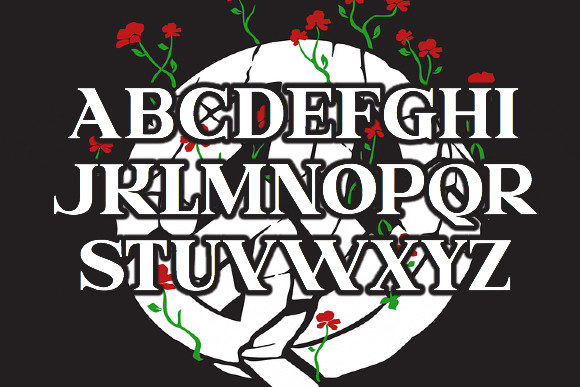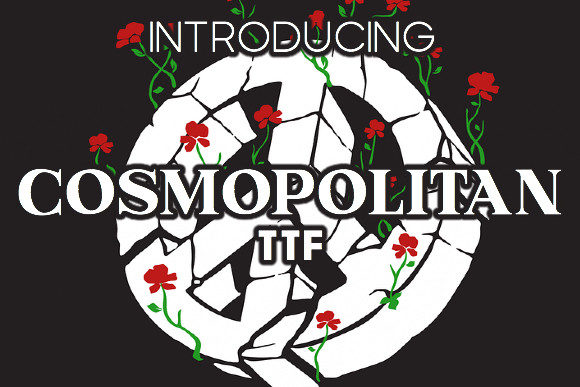
Cosmopolitan Font: Elevate Your Designs with Elegance
Are you on the hunt for a typeface that exudes sophistication and poise? Look no further than the Cosmopolitan font. This stunning font is perfect for designers and crafters seeking to add a touch of elegance to their projects. In this article, we’ll dive into the world of Cosmopolitan font, exploring its features, uses, and benefits.
What is Cosmopolitan Font?
Cosmopolitan is a beautiful typeface that boasts elegant vibes, making it an excellent choice for a wide range of design applications. Its sleek lines, refined curves, and sophisticated style make it perfect for creating visually stunning posters, flyers, prints, and more.
Key Features of Cosmopolitan Font
• Elegant Design: Cosmopolitan font features a sleek and refined design that is sure to elevate your designs.
• Versatile: This font is perfect for a variety of design applications, including posters, flyers, prints, and more.
• Easy to Read: Cosmopolitan font is clear and easy to read, making it perfect for body text and headlines.
• Scalable: This font scales beautifully, ensuring that your designs look great in any size.
Uses of Cosmopolitan Font
Cosmopolitan font is an incredibly versatile typeface that can be used in a wide range of design applications. Here are some ideas to get you started:
• Posters: Create stunning posters that grab attention with Cosmopolitan font.
• Flyers: Design eye-catching flyers that showcase your products or services.
• Prints: Use Cosmopolitan font to create beautiful prints, including brochures, catalogs, and more.
• Branding: Establish your brand identity with Cosmopolitan font, perfect for logos, business cards, and letterheads.
Benefits of Using Cosmopolitan Font
So, why choose Cosmopolitan font for your designs? Here are some benefits to consider:
• Instant Elegance: Add a touch of sophistication to your designs with Cosmopolitan font.
• Improved Readability: This font is clear and easy to read, ensuring that your message gets across.
• Versatility: Use Cosmopolitan font in a wide range of design applications.
• Time-Saving: With Cosmopolitan font, you can create stunning designs in no time.
Tips for Using Cosmopolitan Font
To get the most out of Cosmopolitan font, here are some tips to keep in mind:
• Pair with Other Fonts: Experiment with pairing Cosmopolitan font with other fonts to create a unique look.
• Adjust Font Sizes: Play with font sizes to create visual hierarchy and emphasis.
• Use Colors Wisely: Choose colors that complement Cosmopolitan font and enhance your design.
In conclusion, Cosmopolitan font is an awesome typeface that can elevate your designs with its elegant vibes. With its versatility, readability, and scalability, this font is perfect for a wide range of design applications. Whether you’re a designer or crafter, Cosmopolitan font is sure to become a staple in your toolkit. So, what are you waiting for? Download Cosmopolitan font today and start creating stunning designs that leave a lasting impression.
Cosmopolitan font is an excellent addition to any design project. Its elegant design, versatility, and readability make it perfect for creating stunning posters, flyers, prints, and more. With Cosmopolitan font, you can add a touch of sophistication to your designs and take your creativity to the next level.